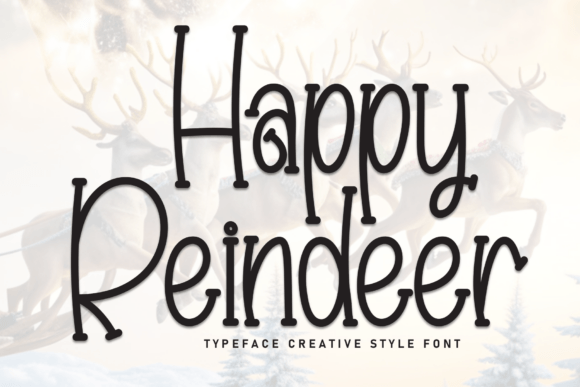
Introducing Happy Reindeer Font: The Perfect Addition to Your Design Collection
Are you a designer, crafter, or DIY enthusiast looking for a unique and friendly font to add a personal touch to your projects? Look no further than the Happy Reindeer Font! This sweet and friendly handwritten font is sure to capture the hearts of your audience with its natural and unique style. In this article, we’ll dive into the features and benefits of Happy Reindeer Font, and explore how it can elevate your designs to the next level.
The Charm of Happy Reindeer Font
Happy Reindeer Font is a one-of-a-kind, handwritten font that exudes warmth and friendliness. Its natural and effortless style makes it incredibly versatile, suitable for a wide range of designs, from festive holiday projects to everyday crafts. The font’s unique charm lies in its imperfections, which give it a human touch that’s hard to replicate with more formal fonts.
The only limit to using Happy Reindeer Font is your imagination! This font can be used for a vast array of projects, including:
- Holiday cards and invitations: Add a festive touch to your Christmas, Hanukkah, or New Year’s Eve designs with Happy Reindeer’s playful and cheerful style.
- Crafting and DIY projects: Use the font to create personalized labels, signs, and decorations for your crafting and DIY projects.
- Branding and marketing materials: Give your brand a friendly and approachable voice with Happy Reindeer Font, perfect for businesses that want to connect with their audience on a more personal level.
- Stationery and journaling: Add a touch of whimsy to your journals, planners, and stationery with this delightful font.
Key Features of Happy Reindeer Font
So, what makes Happy Reindeer Font so special? Here are some of its key features:
- Handwritten style: Each letter is carefully crafted to give the font a natural, handwritten feel.
- Unique character set: The font includes a range of characters, numbers, and punctuation marks to ensure you have everything you need for your designs.
- Easy to read: Despite its playful style, Happy Reindeer Font is easy to read, making it perfect for both digital and print designs.
- Scalable: The font is highly scalable, ensuring it looks great in any size or application.
Tips for Using Happy Reindeer Font
To get the most out of Happy Reindeer Font, here are some tips to keep in mind:
- Experiment with colors: The font looks great in a range of colors, from bright and bold to soft and pastel.
- Mix and match: Combine Happy Reindeer Font with other fonts to create a unique and eye-catching design.
- Play with sizes: Use the font in different sizes to add visual interest and hierarchy to your design.
In conclusion, Happy Reindeer Font is a sweet and friendly handwritten font that’s sure to bring a touch of magic to your designs. With its natural and unique style, endless design possibilities, and key features like a handwritten style and easy readability, this font is a must-have for designers, crafters, and DIY enthusiasts. So why wait? Get creative with Happy Reindeer Font today and see where your imagination takes you!